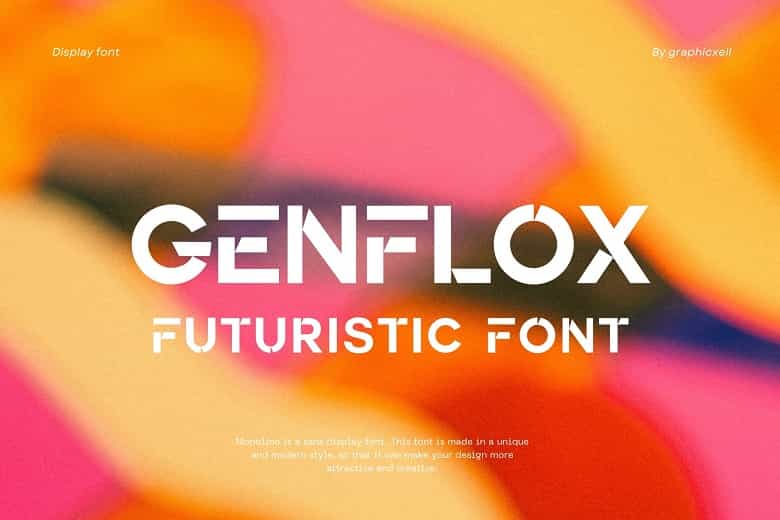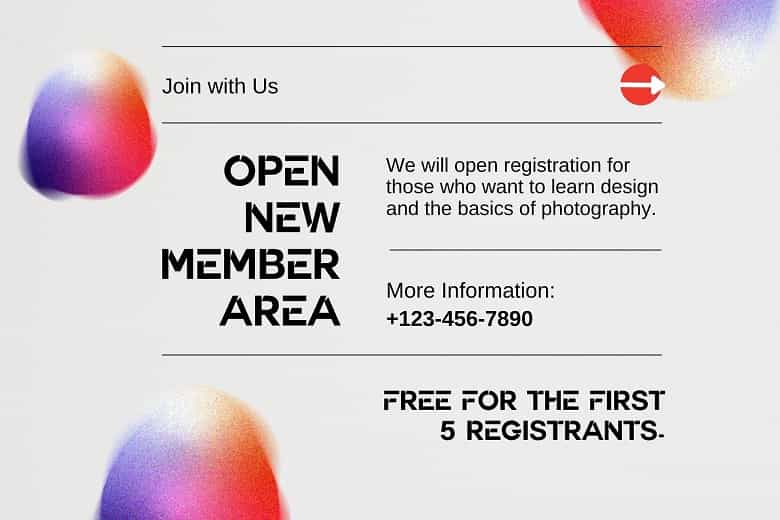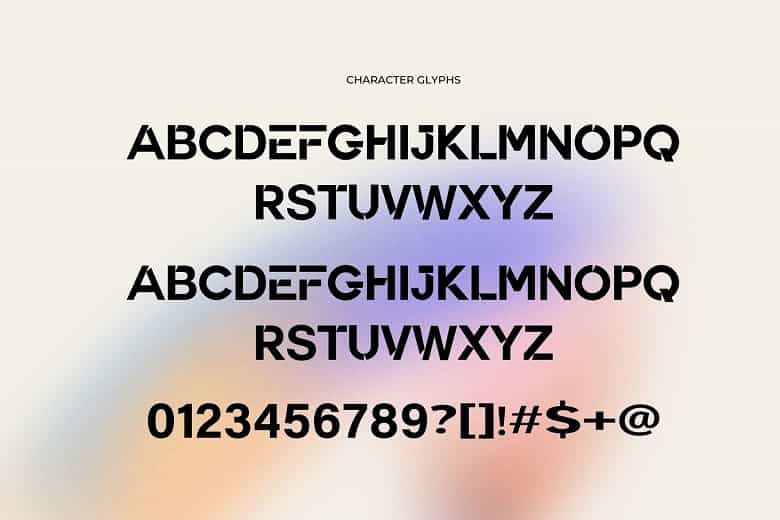
Genflox is futuristic sans display font a bold and forward looking typeface designed with clean lines and geometric accuracy. It has a modern and sleek design that is timeless and features a simple and elegant look. The letters of this font have been given a cleaned up look with smooth curves and sharp edges.